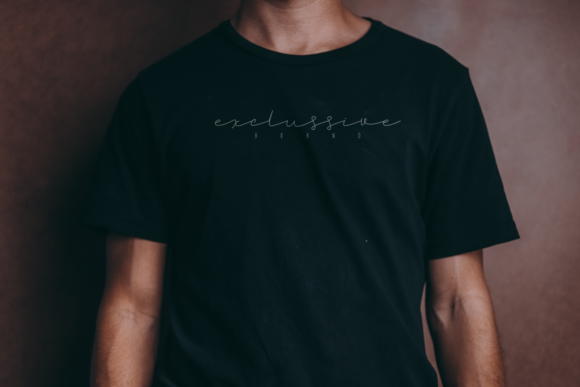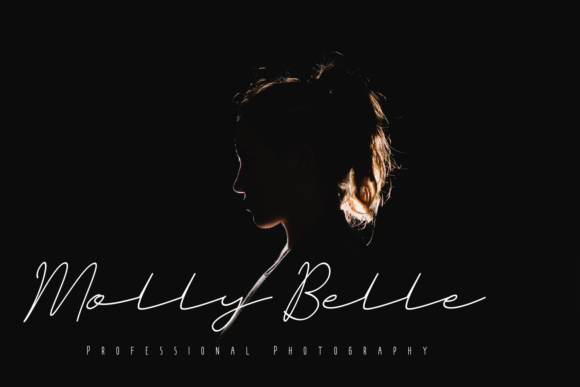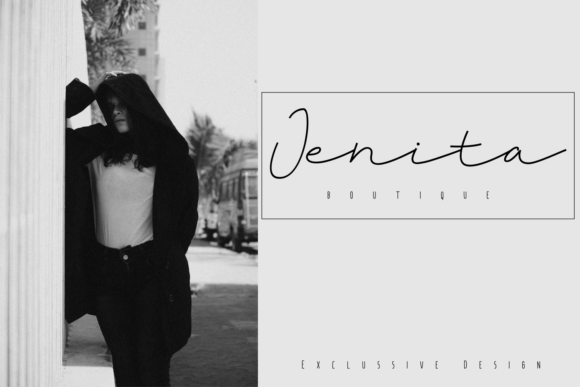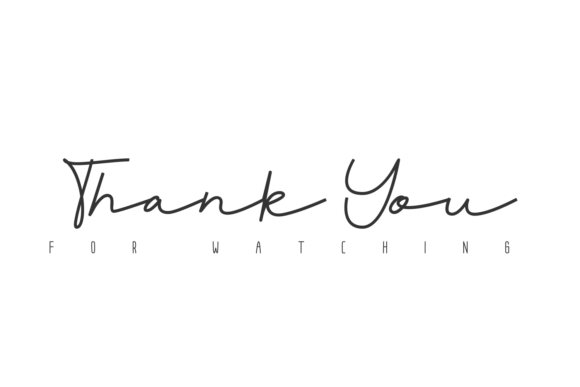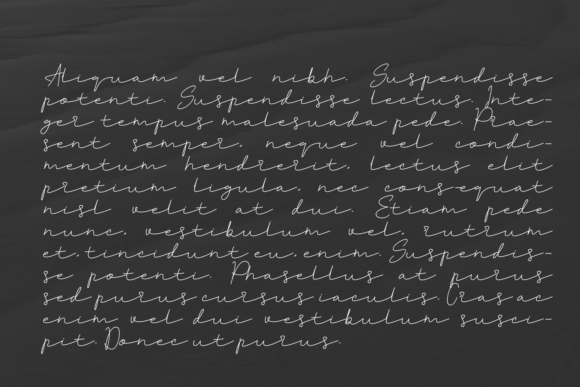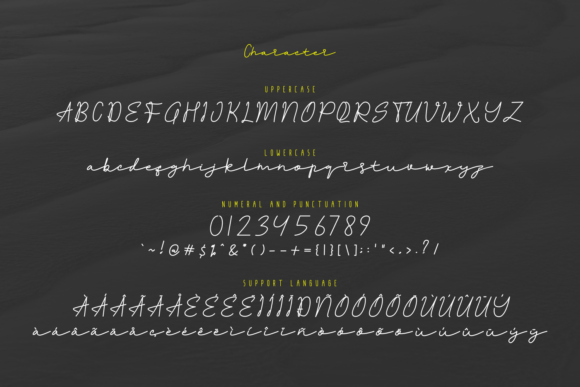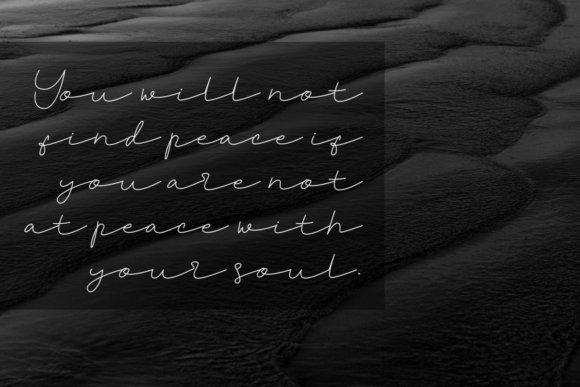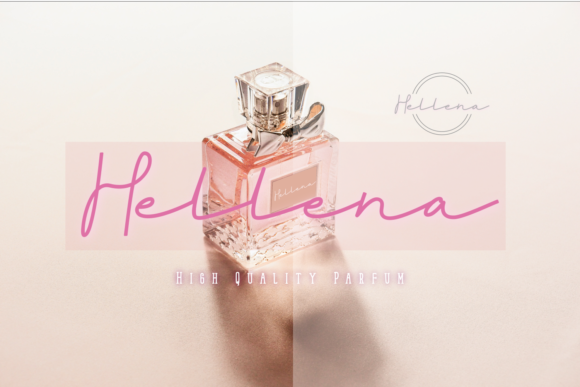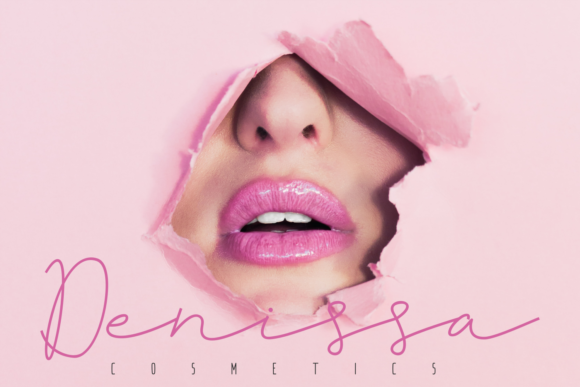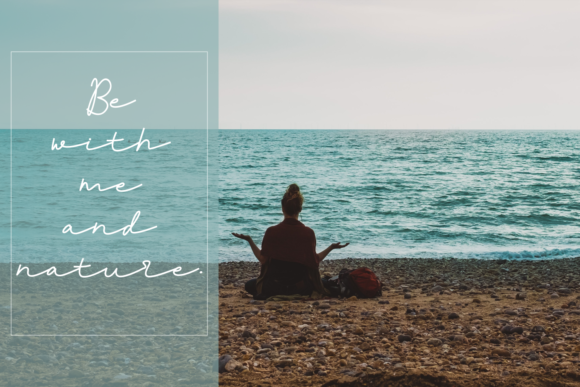
Peacelove Font
About Peacelove Font
Peacelove simplifies elegance into one truly outstanding handwritten font. Whether you’re looking for fonts for Instagram or calligraphy scripts for DIY projects, this font will turn any creative idea into a true piece of art!